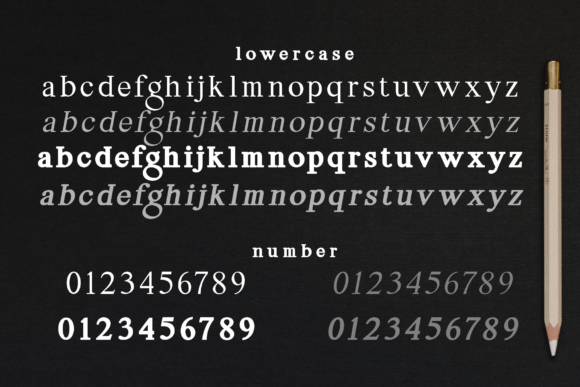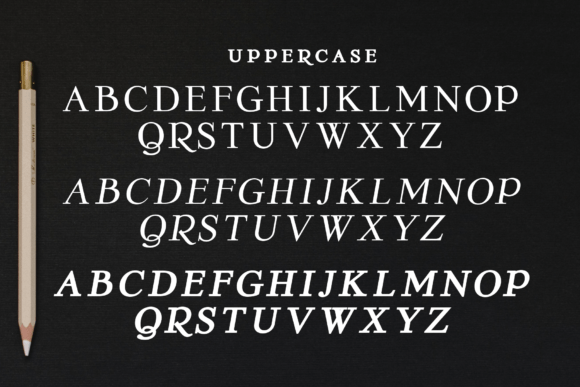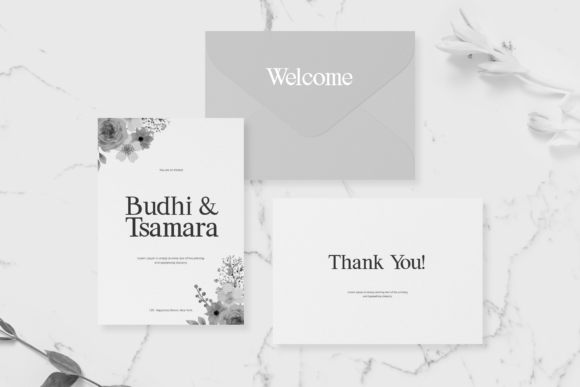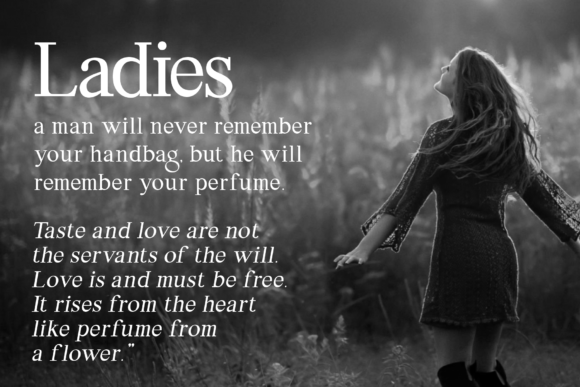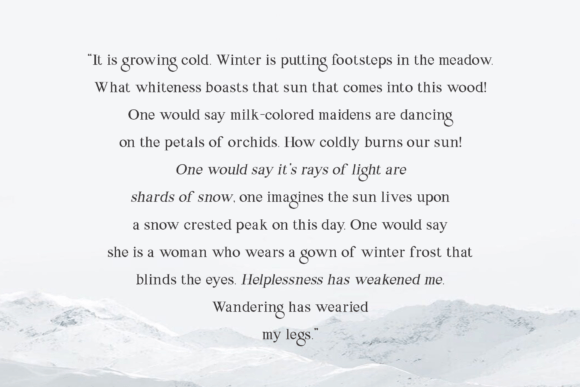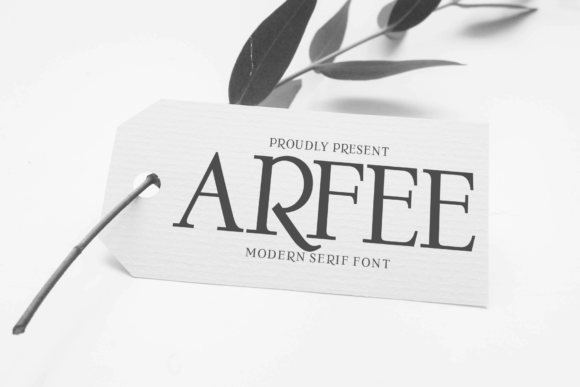
Discover the Elegance of Arfee Font: A Perfect Choice for Your Design Projects
If you’re looking for an elegant serif typeface with strong impact and delicate details, then Arfee is the perfect choice for you. A tall condensed typeface, specially designed for beautiful titles, Arfee Font is a versatile and sophisticated font that can elevate your design projects to the next level.
What Makes Arfee Font Stand Out?
Arfee Font is a unique and stylish serif typeface that boasts a distinctive tall and condensed design, making it ideal for creating stunning titles and headings. Its elegant and refined appearance is perfect for designers and crafters who want to add a touch of sophistication to their work. With Arfee Font, users can choose to make variations or designs on the letters easily, giving them the flexibility to experiment and create something truly unique.
Arfee Font is very suitable for various projects, including brand identity, invitations, magazines, logo designs, and others. Its versatility and adaptability make it a valuable addition to any designer’s toolkit. Whether you’re working on a corporate branding project, designing an invitation for a special occasion, or creating a logo for a new business, Arfee Font is an excellent choice.
Key Features of Arfee Font
- Elegant Serif Typeface: Arfee Font features a sophisticated serif design that exudes elegance and refinement.
- Tall and Condensed Design: Its tall and condensed design makes it perfect for creating stunning titles and headings.
- Delicate Details: Arfee Font boasts delicate details that add a touch of sophistication to any design project.
- Easy to Customize: Users can easily make variations or designs on the letters, giving them the flexibility to experiment and create something truly unique.
Why Choose Arfee Font?
There are many reasons why Arfee Font is an excellent choice for designers and crafters. Here are a few:
- Unique and Stylish: Arfee Font is a unique and stylish serif typeface that can add a touch of elegance to any design project.
- Versatile: Its versatility and adaptability make it suitable for various design projects, including brand identity, invitations, magazines, logo designs, and others.
- Easy to Use: Arfee Font is easy to use and customize, making it perfect for designers and crafters of all levels.
Tips for Using Arfee Font
Here are a few tips for using Arfee Font effectively in your design projects:
- Use it for Titles and Headings: Arfee Font is perfect for creating stunning titles and headings that grab attention.
- Experiment with Variations: Don’t be afraid to experiment with different variations and designs on the letters to create something truly unique.
- Pair it with Other Fonts: Arfee Font can be paired with other fonts to create a unique and stylish combination.
In conclusion, Arfee Font is an elegant serif typeface that is perfect for designers and crafters who want to add a touch of sophistication to their work. Its unique and stylish design, versatility, and ease of use make it an excellent choice for various design projects. Whether you’re working on a corporate branding project, designing an invitation, or creating a logo, Arfee Font is a valuable addition to your toolkit.
So, if you’re looking for a font that can elevate your design projects to the next level, look no further than Arfee Font. With its elegant design, versatility, and ease of use, it’s the perfect choice for designers and crafters who want to create something truly special.